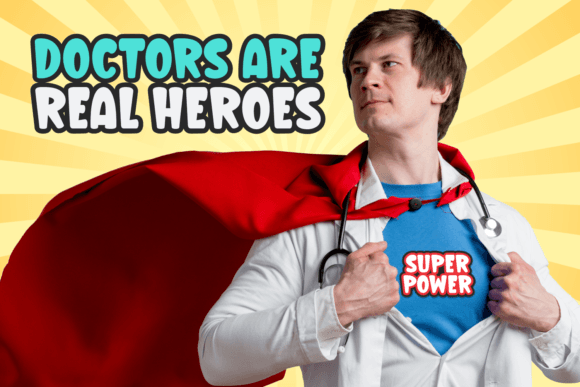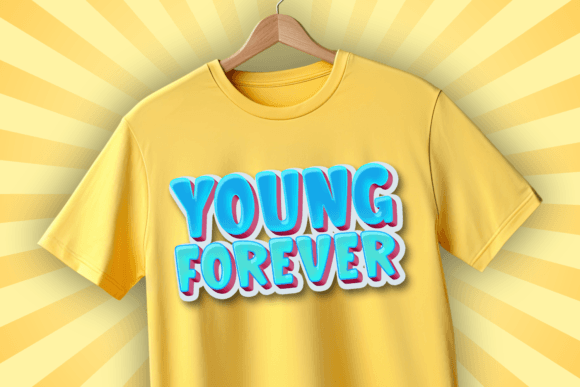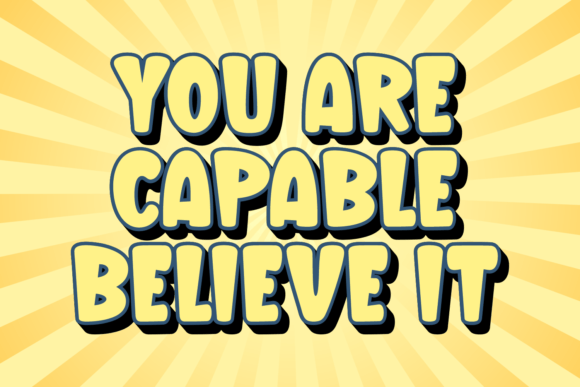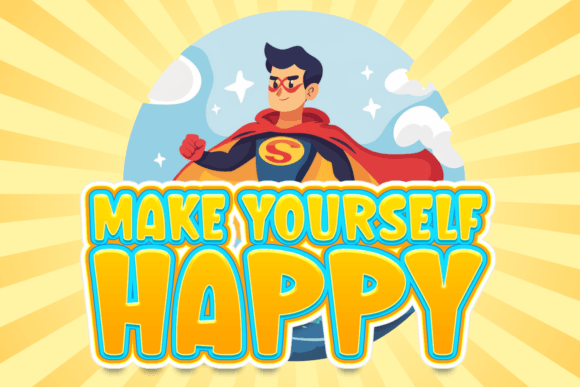
Introduction to Lazy Hero Font Font
Fonts play a crucial role in design, and the Lazy Hero Font font is a typeface that brings both character and versatility to any project. Whether you’re working on a branding project, a website, or a print design, the Lazy Hero Font font offers a unique style that can elevate your work.
Lazy Hero is a superhero display font.
While itβs perfect for superhero themes, Lazy Hero can also be used in a variety of bold design projects, from posters and signage to branding and packaging Its strong visual presence ensures that it grabs attention in any context.
Key Features of Lazy Hero Font Font
Why Choose Lazy Hero Font Font?
The Lazy Hero Font font is more than just a typeface β it’s a design tool that helps you communicate your message with style and clarity. Its unique character set and versatile design make it suitable for a wide range of applications, from elegant invitations to bold headlines.
With its carefully crafted letterforms and balanced proportions, the Lazy Hero Font font ensures readability and visual appeal across all mediums.
What makes Lazy Hero Font font special?
The Lazy Hero Font font stands out with its unique design, exceptional readability, and versatility across various design applications.